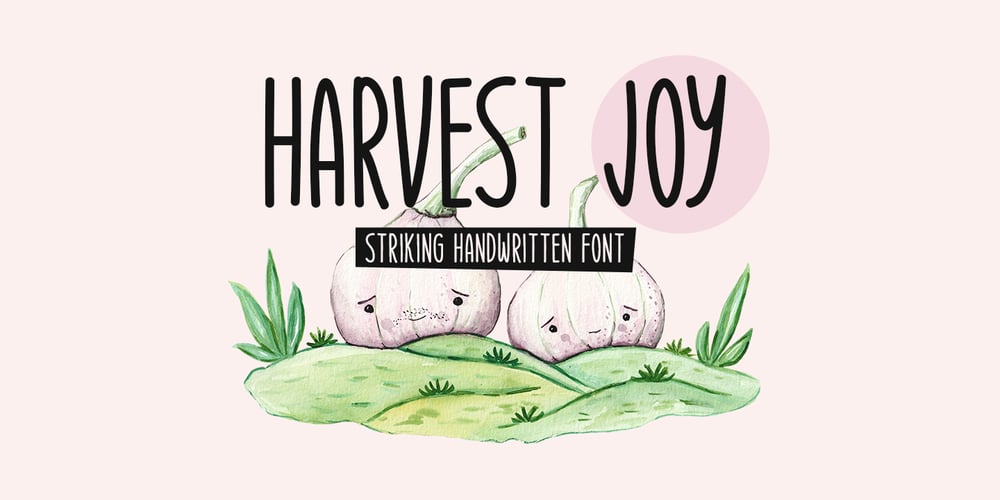
Harvest Joy
Harvest Joy Font Family was designed by Md Shohail Bhuian and published by Seemly Fonts. Harvest Joy contains 1 styles and family package options. A truly stunning handwritten font is Harvest Joy. It can easily be matched to an incredibly large set of projects, so add it to your creative ideas and notice how it makes them stand out!